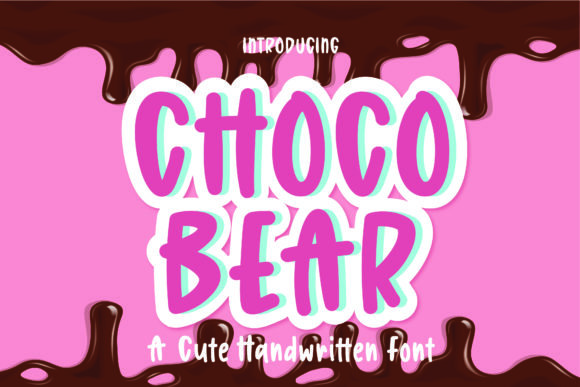
Introduction to Choco Bear Font
Choco Bear is a casual handwritten font.
Its natural and unique style makes it incredibly fitting to a large pool of designs It looks stunning on wedding invitations, thank you cards, quotes, greeting cards, logos, business cards, and every other design which needs a handwritten touch.
Key Features of Choco Bear Font